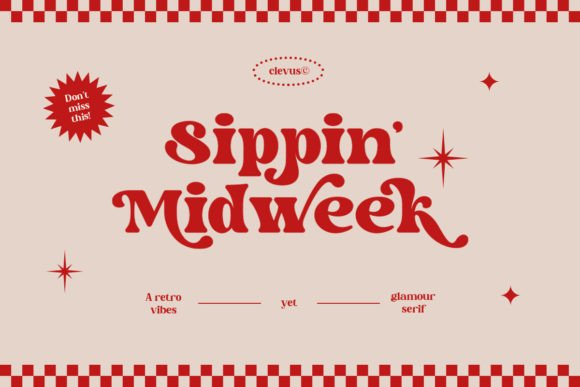
Introducing Sippin' Midweek Font, the ultimate choice for those seeking the best font for magazine covers. Created by Clevus, this font family brings together the perfect balance of retro vibes and glamorous elegance. Prepare to be captivated by the timeless charm of Sippin' Midweek.
With its classic serif style, Sippin' Midweek takes you on a journey to the luxurious era of yesteryears. Imagine flipping through a magazine, and your eyes are instantly drawn to the captivating headlines and stunning typography created by this font. It adds a touch of sophistication and prestige to any design, making it the go-to choice for those wanting to leave a lasting impression.
Whether you're designing a poster, label, or branding material, Sippin' Midweek effortlessly infuses your project with an aura of radiance. Its retro charm commands attention and demands to be noticed. Say goodbye to mundane and predictable fonts that blend into the background. It's time to elevate your designs and make a statement.
Sippin' Midweek is more than just a font; it's a powerful tool that sparks emotions and evokes nostalgia. Its carefully crafted curves and intricate details create a visual symphony that resonates with your audience. Each letter is meticulously designed to exude elegance and prestige, transforming your project into a work of art.
But don't just take our word for it. Imagine the excitement of your readers as they lay eyes on your magazine cover. The eye-catching headlines, perfectly crafted with Sippin' Midweek, instantly draw them in and make them curious to explore further. It's the font that sets you apart from the competition, making a bold statement that leaves a lasting impression.
Embrace the power of Sippin' Midweek and unleash your creativity. Let it transport you to a world where retro meets glamour, and every project becomes a masterpiece. With its versatility and timeless appeal, this font is an investment in your success. Step into the spotlight and let Sippin' Midweek be your secret weapon.
Don't settle for ordinary when you can have extraordinary. Choose Sippin' Midweek Font and let your designs speak volumes. Elevate your project with the best font for magazine covers and watch as heads turn and hearts skip a beat. Get ready to create captivating typography that leaves a lasting impression.